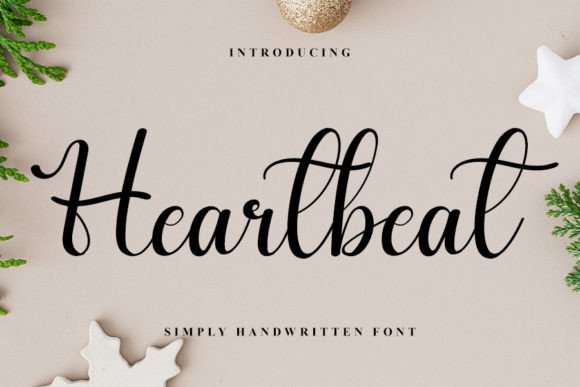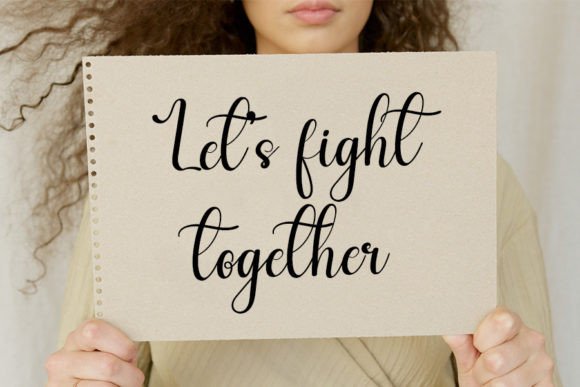
**Heartbeat: Where Elegance Meets Timeless Beauty**
**Heartbeat** is more than just a font; it’s a rhythmic dance of elegance and timeless beauty, carefully curated to elevate your favorite projects. With an incredibly distinct style, this font invites you to fall in love with the art of design.
The beauty of **Heartbeat** lies in its neat and graceful handwriting. Each stroke is a testament to the meticulous craftsmanship that goes into creating a font that stands out. The characters, aligned in perfect harmony, exude an aura of sophistication that transcends the ordinary.
Whether you’re designing wedding invitations, crafting social media posts, or working on advertisements, **Heartbeat** brings a touch of refined charm to every project. Its versatility allows it to seamlessly integrate into various design contexts, making it a go-to choice for those who seek both elegance and distinctiveness.
The timeless style of **Heartbeat** ensures that it won’t just follow trends; it will become a classic, a font that withstands the test of time. Its enduring appeal makes it suitable for a wide range of applications, from stationery to product packaging and beyond.
As you immerse yourself in the world of **Heartbeat**, you’ll discover the joy of creating designs that resonate with a sense of sophistication and grace. Let each character be a heartbeat in your creative journey, pulsating with the passion for crafting something truly spectacular.
Dive into the world of design with **Heartbeat** and witness how it transforms your projects into visual poetry, where elegance meets timeless beauty. Create with passion, design with grace—experience the heartbeat of creativity with this exquisite font.